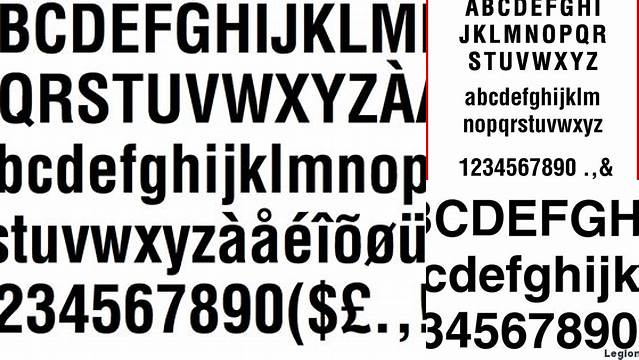
Hey guys! Are you on the hunt for the Helvetica Condensed Bold font? You've landed in the right spot! This article is your ultimate guide to everything you need to know about this classic typeface, including how to get it for free. We'll dive into what makes Helvetica Condensed Bold so special, where you can download it safely, and how to use it to make your designs pop. This font is a workhorse in the design world, known for its clean lines and readability. Whether you're a seasoned designer or just starting out, understanding Helvetica Condensed Bold is a game-changer. So, let's get started and unlock the power of this amazing font!
First things first, let's talk about why Helvetica Condensed Bold is so popular. Its design is incredibly versatile, making it suitable for a wide range of applications. Think about all those times you've seen clean, modern logos, headlines, and even body text that just looks perfect. Chances are, Helvetica, or one of its close relatives, was involved. This font is a part of the Swiss style, celebrated for its simplicity and functionality, which is something we all appreciate. Its bold weight is especially useful for grabbing attention, making it ideal for headings, titles, and any text you want to stand out. The condensed version saves space while still maintaining legibility, which is perfect for tight layouts where every pixel counts. The reason it's so famous is because it's not just about the look; it's about the message it conveys. Helvetica projects professionalism, clarity, and a sense of timelessness. That's why big brands and small businesses alike love to use it. You get a clean, elegant look that's perfect for conveying your message. It's a go-to choice for designers worldwide, and for good reason.
When using Helvetica Condensed Bold, remember to consider the context. Its clean and modern design makes it perfect for minimalist designs, clean layouts, and modern projects. In logos, it can convey a sense of professionalism and clarity. When used for headlines, it's bold and easy to read, making it perfect for grabbing attention. In body text, it provides a clear, concise appearance, especially for short paragraphs. It is also important to consider the spacing and kerning of the font. Kerning refers to the adjustment of space between individual letters. Sometimes, you might need to fine-tune the kerning to ensure your text looks balanced and professional. Experiment with different font sizes and weights to achieve the desired effect. The best approach is to play around with the font and see what works best for your project. This may take some practice, but the results are worth it. By understanding the nuances of this font, you can leverage its power and create stunning designs that look fantastic and communicate your message effectively. Use it with confidence and watch your designs come to life. Also, make sure you're using the correct weight of the font for your design. If you have multiple weights available, the bold weight is for headlines and the regular or light weight is great for body text. Keep it clean, simple, and functional!
Designing with Helvetica Condensed Bold: Tips and Tricks
Ready to start designing with Helvetica Condensed Bold? Let's dive into some tips and tricks to help you make the most of this amazing font. First, consider your design's purpose and target audience. The versatility of Helvetica Condensed Bold makes it suitable for many designs. But is it the right fit for your specific project? Think about the mood and message you want to convey. If you're aiming for a clean, modern, and professional look, you can't go wrong. The bold weight works wonders for titles and headlines, as it grabs attention immediately. Pair it with a lighter weight of Helvetica or another complementary font for the body text to create visual hierarchy. Always remember to use the font in a way that aligns with your brand or the project's goals. The font's clean lines and bold appearance can work wonders when used right. You'll get the design that's unique and great.
Next, let's talk about color and contrast. Helvetica Condensed Bold looks amazing against various backgrounds and colors. Make sure there's enough contrast between the text and the background for easy readability. White or light-colored text on a dark background can create a powerful effect. Also, the font looks great in black and white. Experiment with different color combinations. Also, think about the overall color scheme of your project. This helps it pop. Use color strategically to highlight key information and make the design visually appealing. The font is simple and versatile and looks great with any design or color scheme. It's all about choosing the color that helps your design pop. Always consider your target audience. Think about what color combinations and designs they'll find appealing.
Finally, keep it simple. Helvetica Condensed Bold is a statement font. This means it works best when used in a clean and uncluttered design. Don't overcrowd your design. Make sure that the font has enough space to breathe. Less is often more. By following these tips, you'll be able to create stunning designs that really make a statement. When you create designs, try several different versions. It's fun to experiment with different layouts, color combinations, and font sizes. Make sure that your text is well-spaced and easy to read. It will have a big impact. By practicing these tips, you can design with confidence. It will help you create stunning visuals that grab your audience's attention. So go ahead and get started! The options are endless, so have fun and be creative.